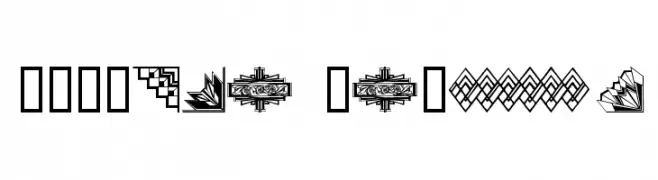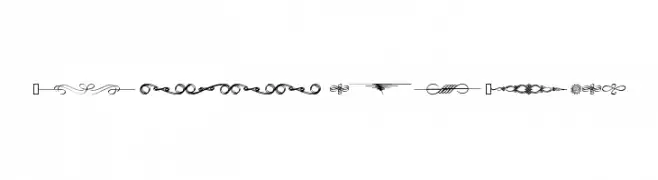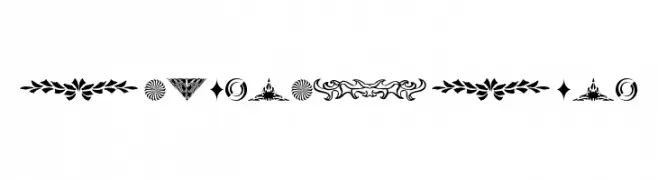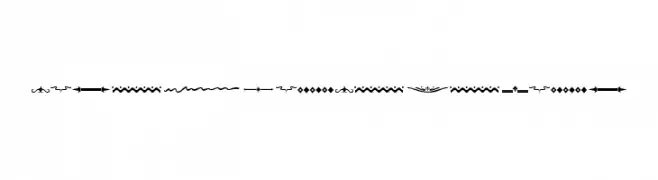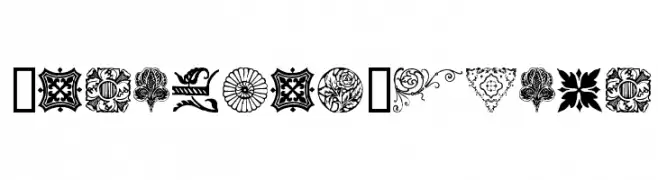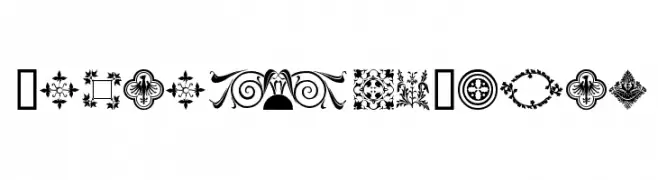
Ornate, vintage-inspired decorative motifs with intricate detailing.
Ornamental motifs with a medieval aesthetic.
Ornamental dingbat set with varied decorative motifs.
Ornamental icon set with East Asian-inspired motifs in bold, geometric style.
Intricate and bold motifs inspired by traditional Mexican art, featuring detailed cultural symbols.
A decorative typeface with geometric Art Deco motifs and intricate patterns.
Ornamental motif font with decorative flourishes and dividers.
Ornamental divider and frame glyph set with decorative and geometric styles.
Highly ornamental and decorative motif font.
Victorian-inspired design with bold rectangular shapes and ornate decorative elements.